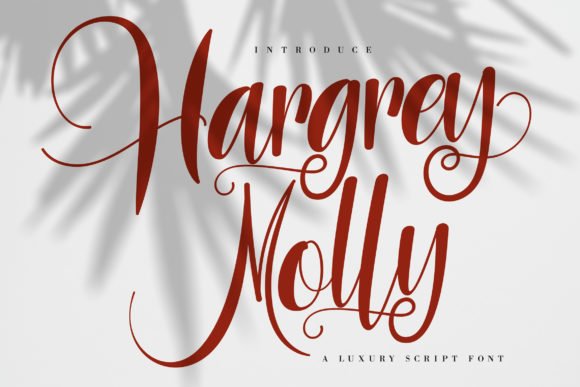
Falling in Love with the Perfect Script
Do you remember the moment when you stumbled upon the perfect font for your design project? Maybe it was a quirky sans-serif or a elegant serif that made your heart skip a beat. For designers, finding the right font can be a game-changer, and I’m excited to introduce you to a stylish and modern script font that’s sure to capture your heart – the Hargrey Molly Font.
With its unique character and charming style, the Hargrey Molly Font is perfect for designers who want to add a touch of personality to their projects. Whether you’re working on a wedding invitation, a branding project, or a social media campaign, this font is sure to make a lasting impression. Its versatility and elegance make it a valuable asset for any designer’s toolkit.
Hargrey Molly Font Key Features
- Unique Characteristics: Elegant script font with a modern twist, suitable for invitations, wedding designs, and other creative projects.
Hargrey Molly Font Review
I recently had the chance to work with the Hargrey Molly font, and I must say, it’s a unique and interesting addition to any design project. ✨ The font’s elegant, cursive style adds a touch of sophistication and whimsy, making it perfect for projects that require a sense of luxury and refinement.
Here are some things that I think work well:
- ✨ Elegant, flowing lines that add a sense of movement and energy to any design.
- ✨ Perfect for projects that require a touch of femininity and romance, such as wedding invitations or greeting cards.
- ✨ Highly legible, even at smaller font sizes, making it a great choice for body text or captions.
- ⚠️ The font may be too ornate or cursive for some designs, making it difficult to read at a glance.
- ⚠️ Limited character set, which may not be suitable for projects that require a wide range of special characters or symbols.
- ⚠️ May not be the best choice for projects that require a more modern or edgy feel, as the font’s elegant style may come across as too old-fashioned.
Overall, I think the Hargrey Molly font is a great choice for projects that require a touch of elegance and sophistication. While it may not be the best choice for every design project, it’s definitely worth considering for projects that require a unique and refined look.
The Hargrey Molly Font is a versatile font that can be used for a variety of purposes, including:
- Editorial and publishing projects
Some tips for getting the most out of the Hargrey Molly Font include:
- Pairing it with other elegant fonts for a sophisticated look
- Using it for headings and titles to add visual interest
- Experimenting with different font sizes